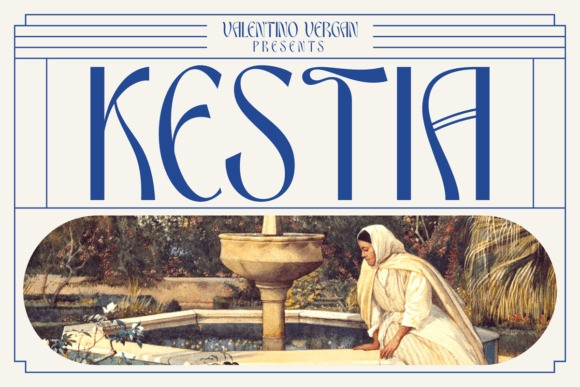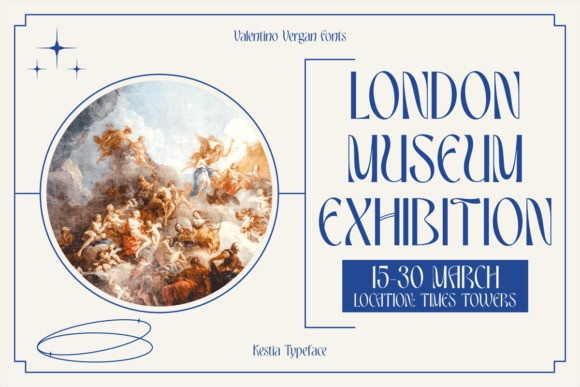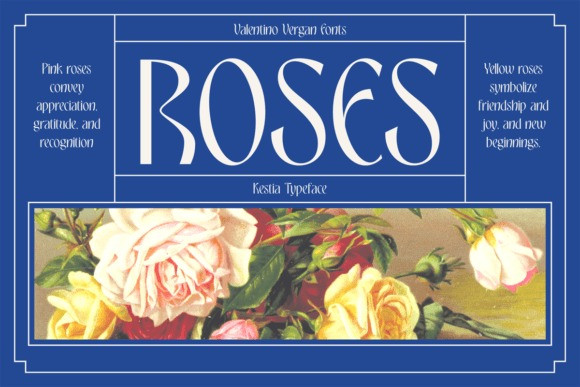
Kestia Font
Kestia is a modern and elegant display typeface, which leans toward the Neue Nouveau type style. The inspiration for Kestia came from the early Art Nouveau typographic designs. Masterfully designed to become a true favorite, this font has the potential to bring each of your creative ideas to the highest level!